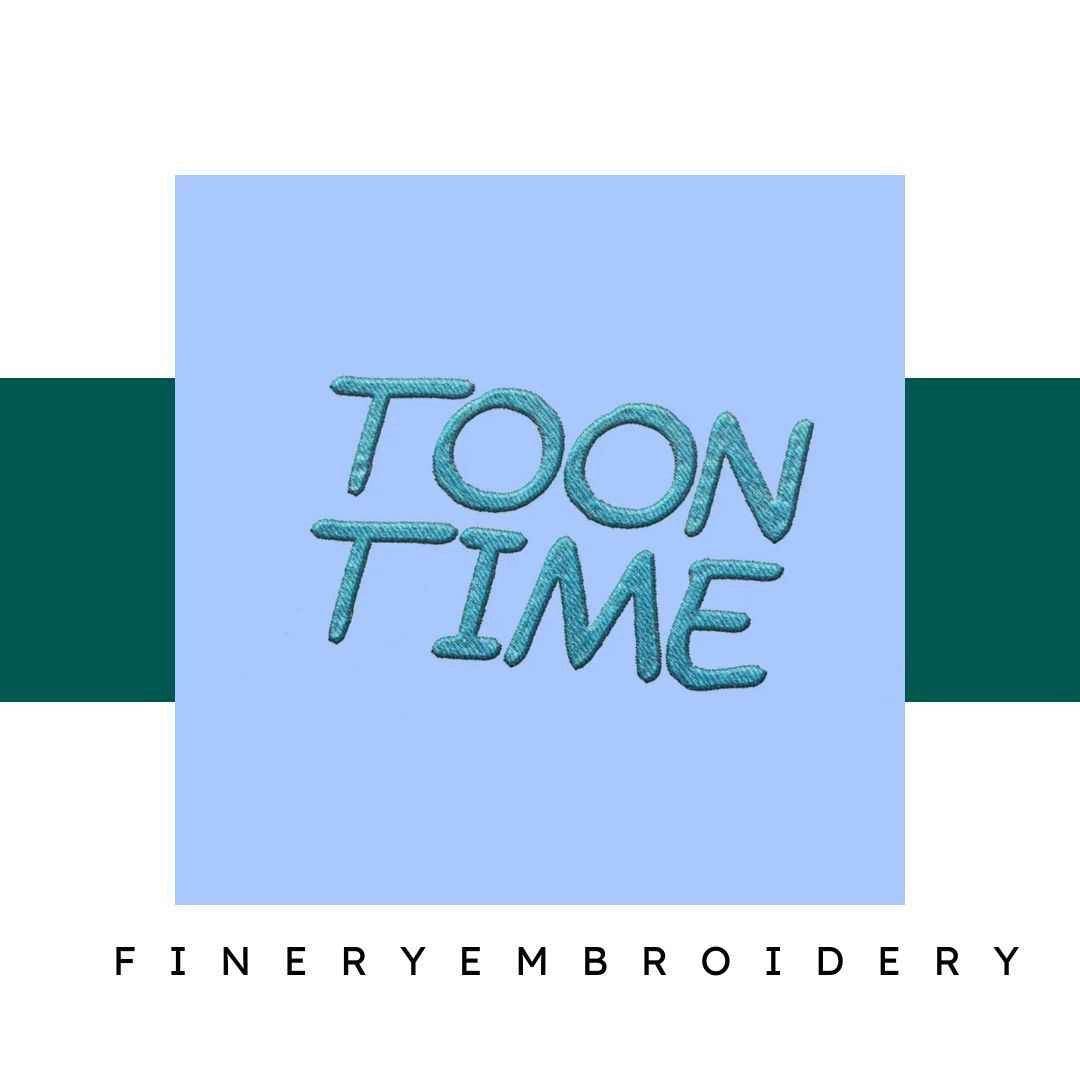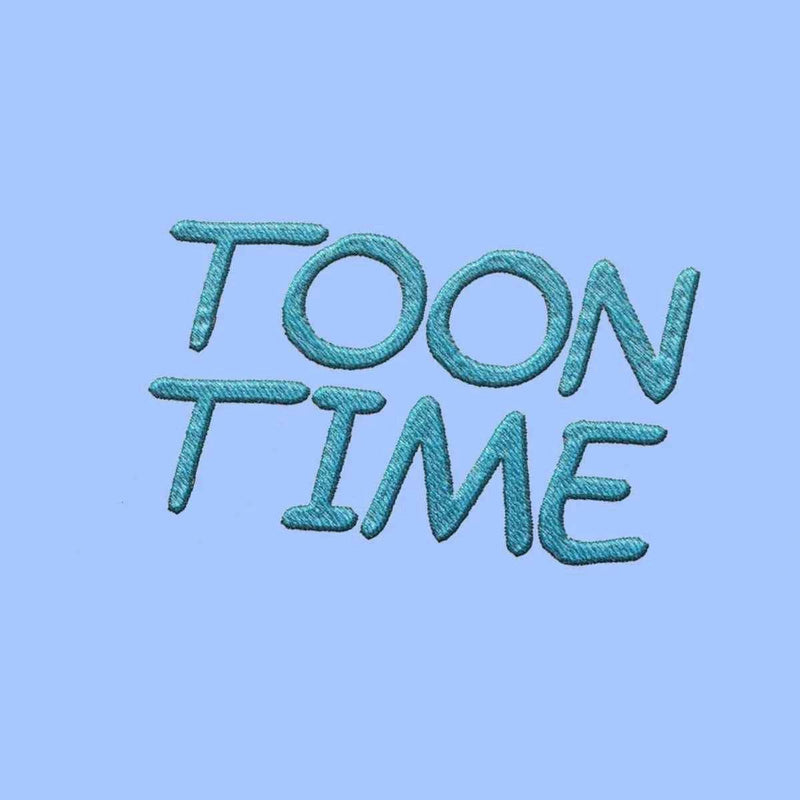
Unleash your creativity with the Toon Time Embroidery Alphabet Font Set—where every letter becomes a canvas for your imagination!
Introducing the Toon Time Embroidery Alphabet Font Set, your new go-to resource for adding a touch of elegance and personality to all your embroidery projects. This remarkable collection brings a wide array of high-quality fonts that are perfect for personalizing everything from gifts to clothing, and even home decor! Whether you're just starting your embroidery journey or are a seasoned pro, you're going to love how this font set transforms your creations.
Toon Time is designed with versatility in mind, making it easy for you to select the perfect font for any project. Each letter and embellishment in this set is crafted to be both charming and elegant, ensuring that your designs stand out. You’ll appreciate the clarity and precision of each font, which adds a professional touch to your work.
Imagine personalizing a baby blanket with whimsical letters or creating custom apparel for your family reunions. The creative applications for this font set are virtually limitless! From home decor pieces that reflect your style to unique gifts that warm hearts, the Toon Time Alphabet Font Set is your ideal partner in bringing your embroidery visions to life.